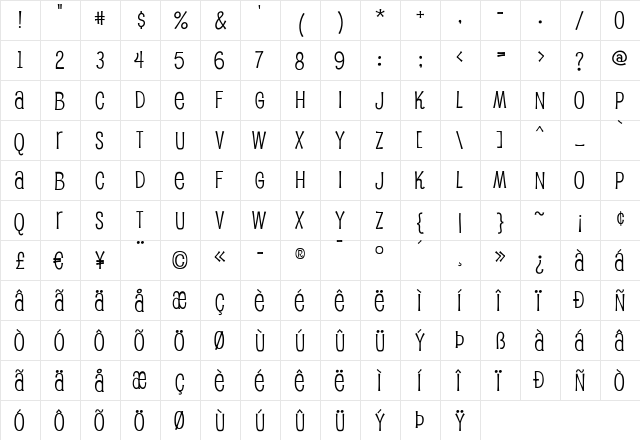
Pupcat Regular
Design Context for Pupcat Typeface
Pupcat takes a measured approach to typography — its balanced proportions and neutral character make it a reliable workhorse for both digital and print work.